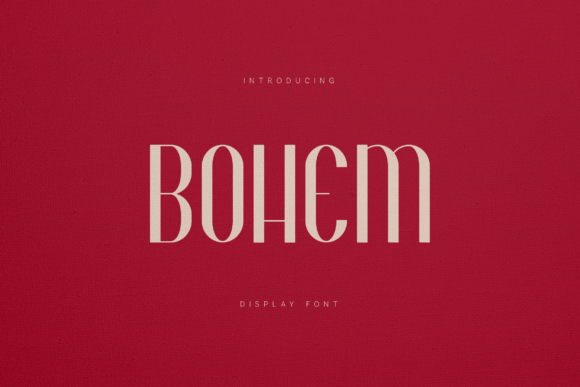
The Elegance of Bohem Font: A Designer’s Dream Come True
I’ll never forget the struggle I faced while working on a luxury branding project for a high-end fashion client. The goal was to create a sophisticated and timeless visual identity that exuded elegance and refinement. However, finding the perfect font that embodied these qualities proved to be a daunting task – until I stumbled upon the Bohem font. ✨
Bohem is an elegant Art Deco–inspired display font that seamlessly blends vintage sophistication with modern refinement. Its tall proportions, smooth curves, and delicate contrast make it the ideal choice for high-end typography projects. In this article, I’ll share my experience with the Bohem font, its features, and how to make the most of it in your designs.
An Honest Review of Bohem Font
What I Love About Bohem Font
• ✨ Elegant and sophisticated design: Bohem font boasts a unique and refined aesthetic that instantly elevates any design project.
• ✅ Versatility: Its tall proportions and delicate contrast make it suitable for a wide range of applications, from posters and fashion branding to editorial layouts and luxury visuals.
• 🔥 Attention-grabbing headlines: The distinctive letterforms of Bohem font make headlines and titles stand out without overwhelming the composition.
While Bohem font is an excellent choice for many design projects, there are a few things to keep in mind: ⚠️
• 🤔 Legibility at small sizes: As with many elegant and refined fonts, Bohem may lose legibility when used at very small sizes.
• ⚠️ Overuse of stylistic alternates: With a range of OpenType features and glyphs at your disposal, it’s easy to get carried away – be mindful of maintaining consistency in your design.
The Story Behind Bohem Font
Bohem font was designed with the goal of capturing the essence of Art Deco elegance and sophistication. Inspired by the luxury and refinement of the Roaring Twenties, the font’s creator aimed to craft a typeface that would bring a touch of vintage glamour to modern design projects. The result is a font that exudes timeless class and sophistication, perfect for high-end branding and luxury visuals.
Font Name Bohem Font
Author vladfedotovv
Q: What is the Bohem font best suited for?
A: Bohem font is ideal for high-end branding, luxury visuals, fashion branding, editorial layouts, and packaging.
Q: Is Bohem font suitable for body text?
A: While Bohem font is elegant and refined, it’s primarily designed for display purposes. For body text, consider using a more legible font.